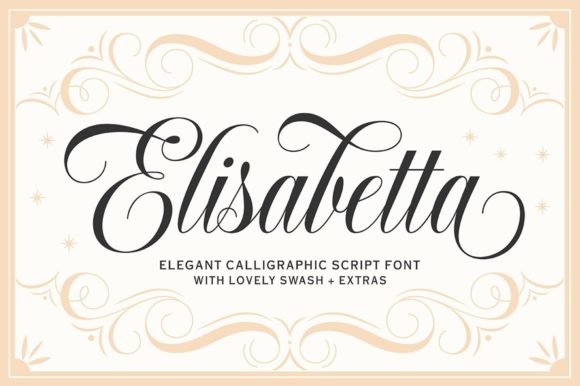
Introducing Elisabetta Script Font - A Timeless Masterpiece for Modern Designers
Embark on a typographic journey of refinement and charm with Elisabetta Script Font, a handcrafted masterpiece that brings a touch of elegance and sophistication to your creative endeavors.
As you delve into the world of Elisabetta Script, you'll discover a symphony of curves, flourishes, and meticulous details that capture the essence of luxury and grace. Each letter is a testament to the skill and passion of its creator, seniorsstudio, who poured their heart and soul into crafting this exceptional font.
With Elisabetta Script, you hold the key to unlocking a realm of design possibilities. Whether you're designing logos, branding materials, wedding invitations, or any project that demands an air of exclusivity, this font will elevate your work to new heights of sophistication.
Dive into the World of Elisabetta Script
Step into a world where fonts come alive, and words dance with grace. Elisabetta Script is not just a collection of letters; it's an experience that will transform your designs into timeless works of art.
This font was carefully crafted to render beautifully at any size, ensuring that your designs retain their clarity and impact across a wide range of applications. From large-scale signage to delicate web designs, Elisabetta Script will leave an unforgettable impression.
Discover a Palette of Possibilities
Elisabetta Script's PUA encoding opens up a world of creative possibilities, granting you effortless access to all of its glyphs and swashes. Unleash your imagination and explore the endless combinations of characters, flourishes, and ornaments to create designs that captivate and inspire.
This font is a treasure trove for designers seeking to add a touch of luxury and refinement to their work. Whether you're designing logos, branding materials, or any project that demands an air of exclusivity, Elisabetta Script will elevate your designs to new heights of sophistication.